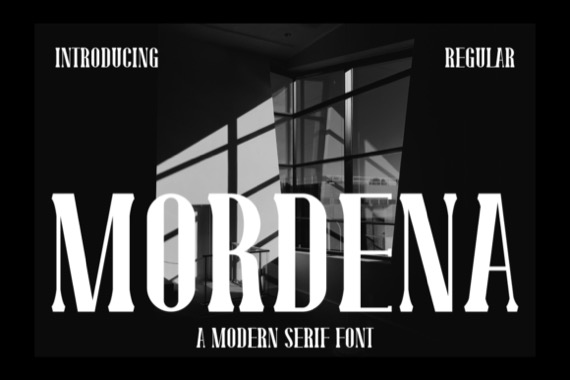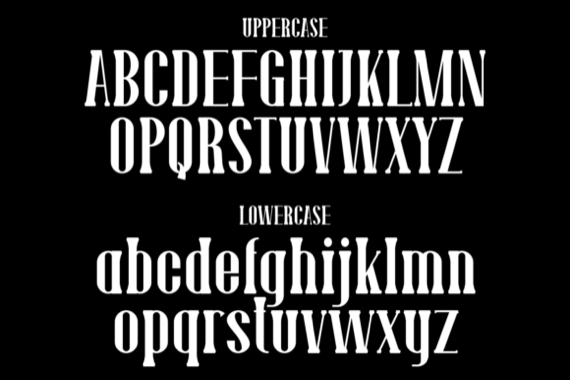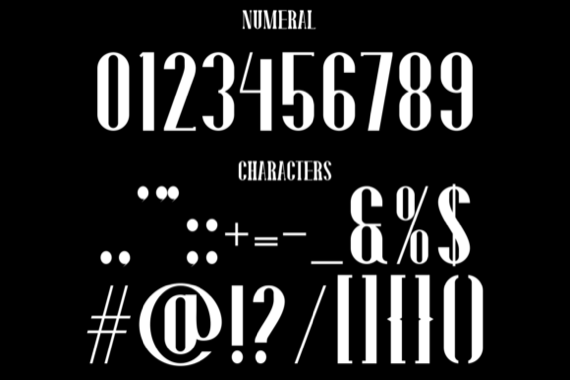
Mordena is a refined blend of style and minimal serif font that was created and released by Maxs_Graphic. It can easily be matched to an incredibly large set of designs. Showcasing an elegant serif design with timeless appeal. Its graceful curves and well-balanced proportions evoke a sense of class and luxury, making it ideal for editorial layouts, branding materials, and high-end projects seeking a touch of timeless elegance.
Mordena Display Sans Font